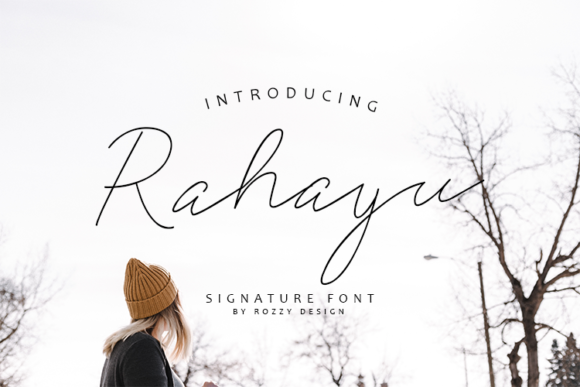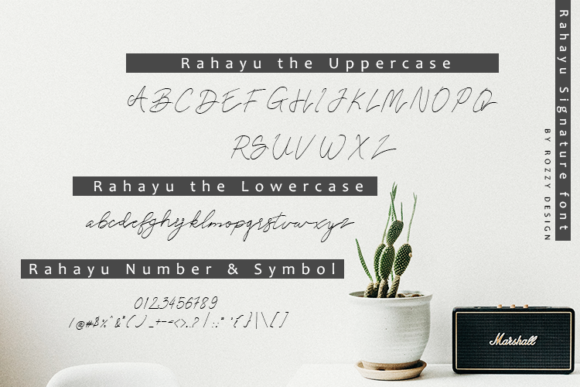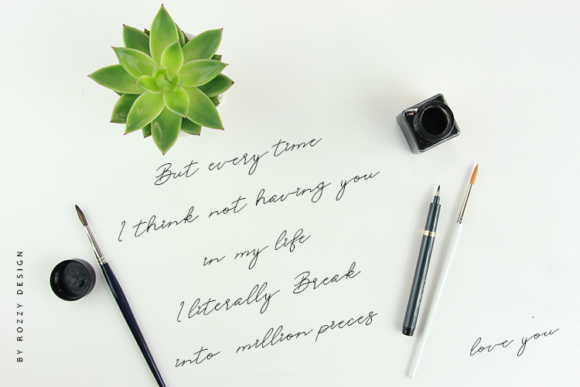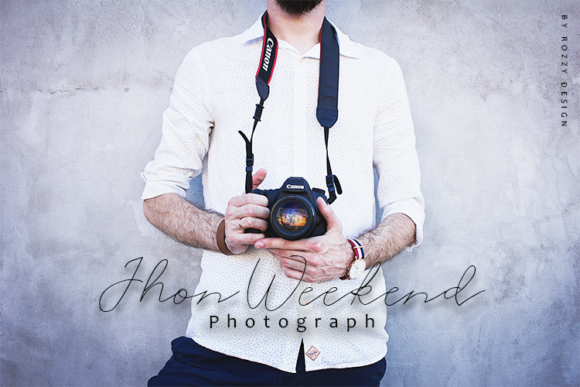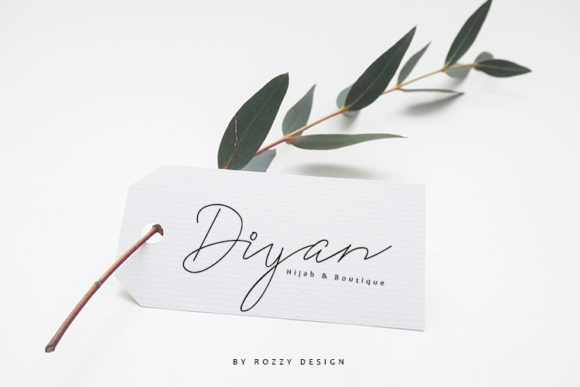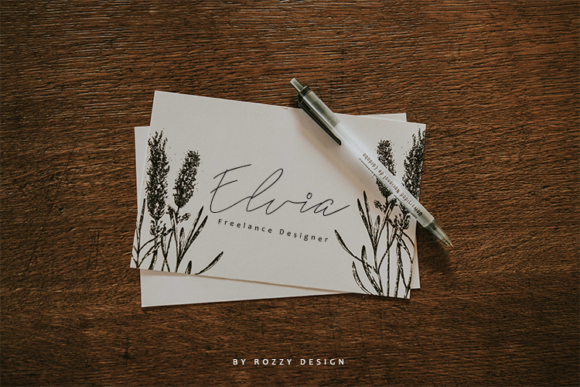
Rahayu Font
About Rahayu Font
Rahayu is a thin lettered, neat and friendly handwritten font. Suitable to a wide variety of designs due to its delicate and simple style, this font has the potential to become your favorite go-to font, no matter the occasion!